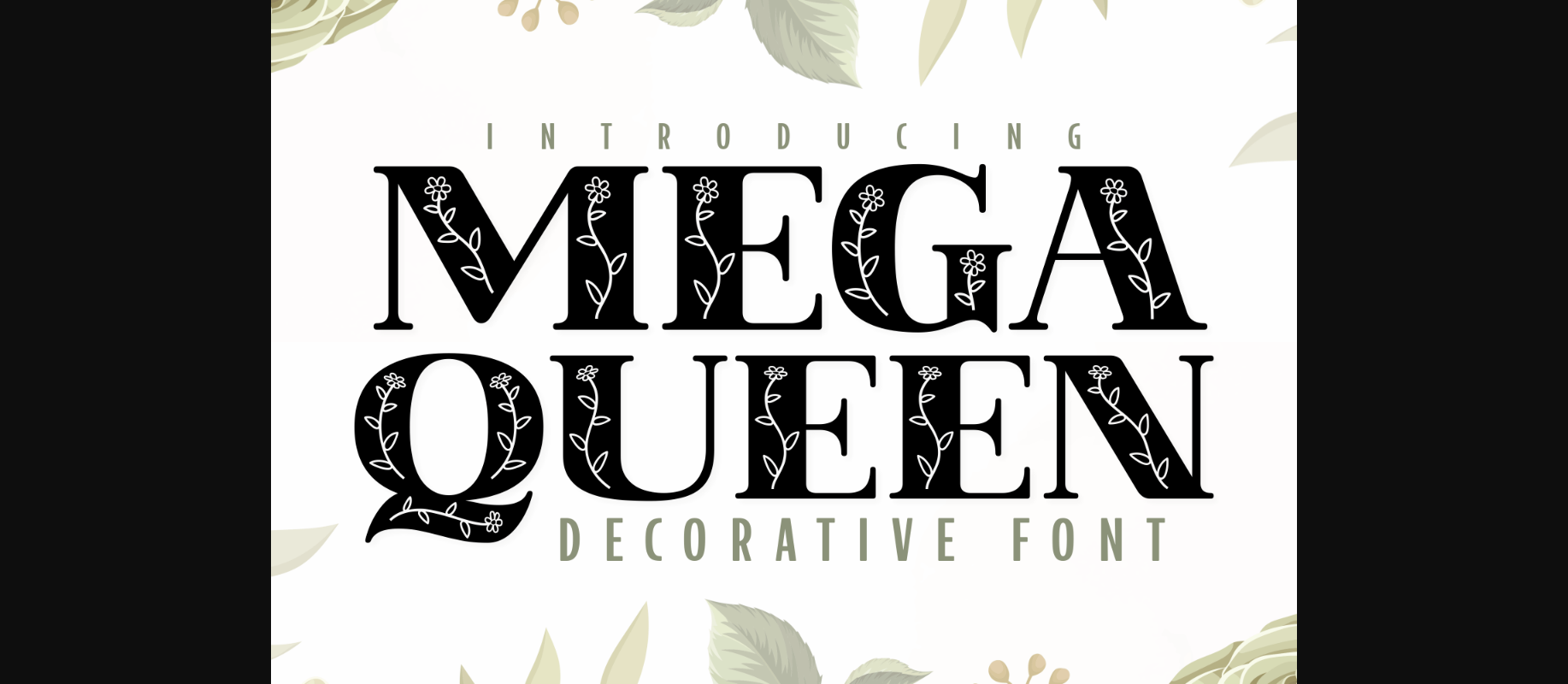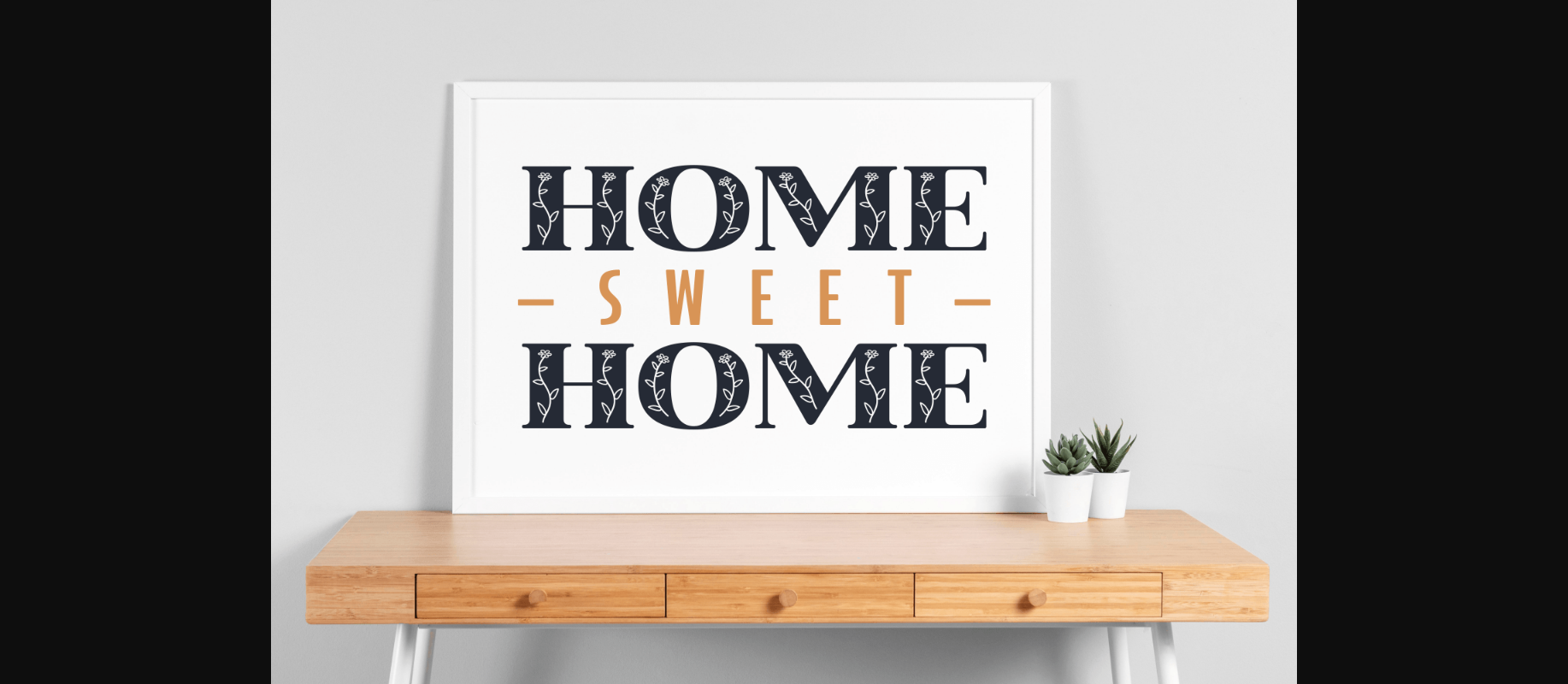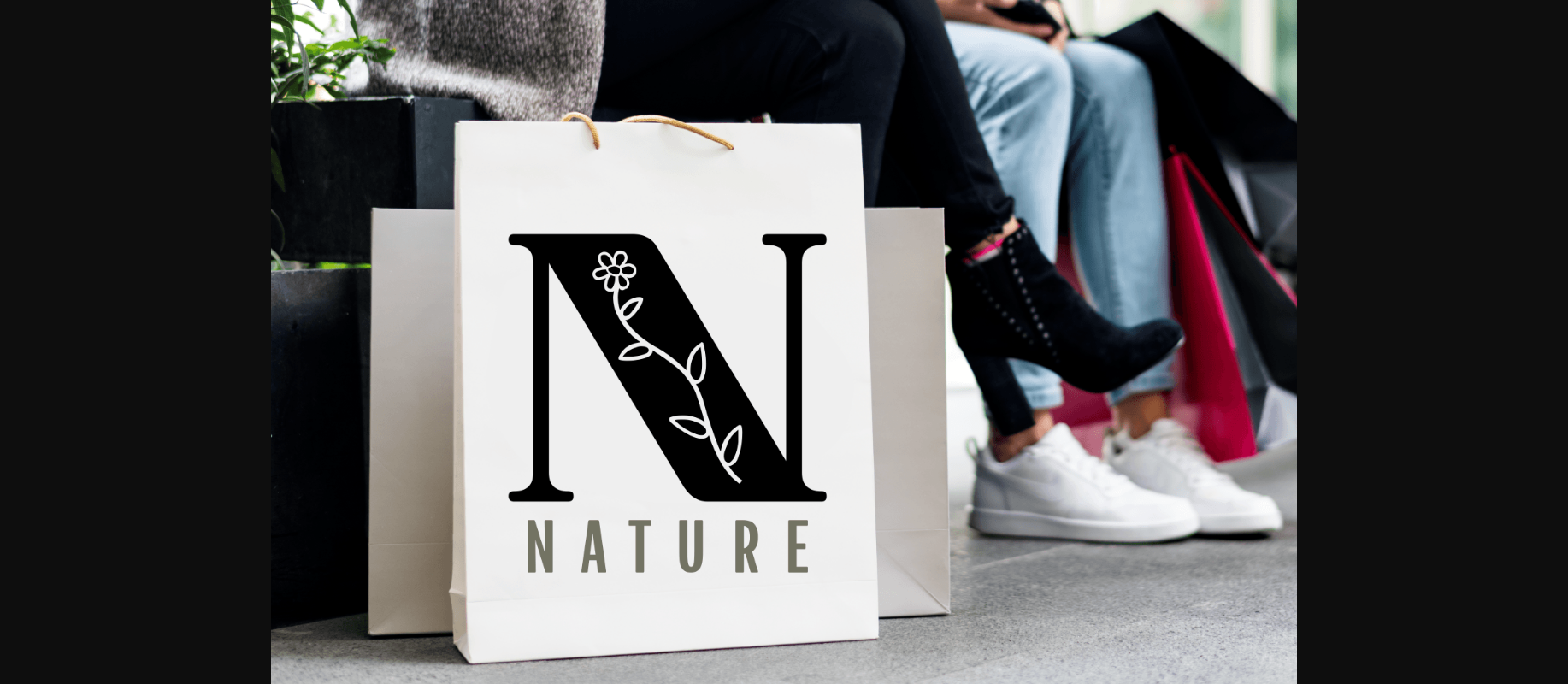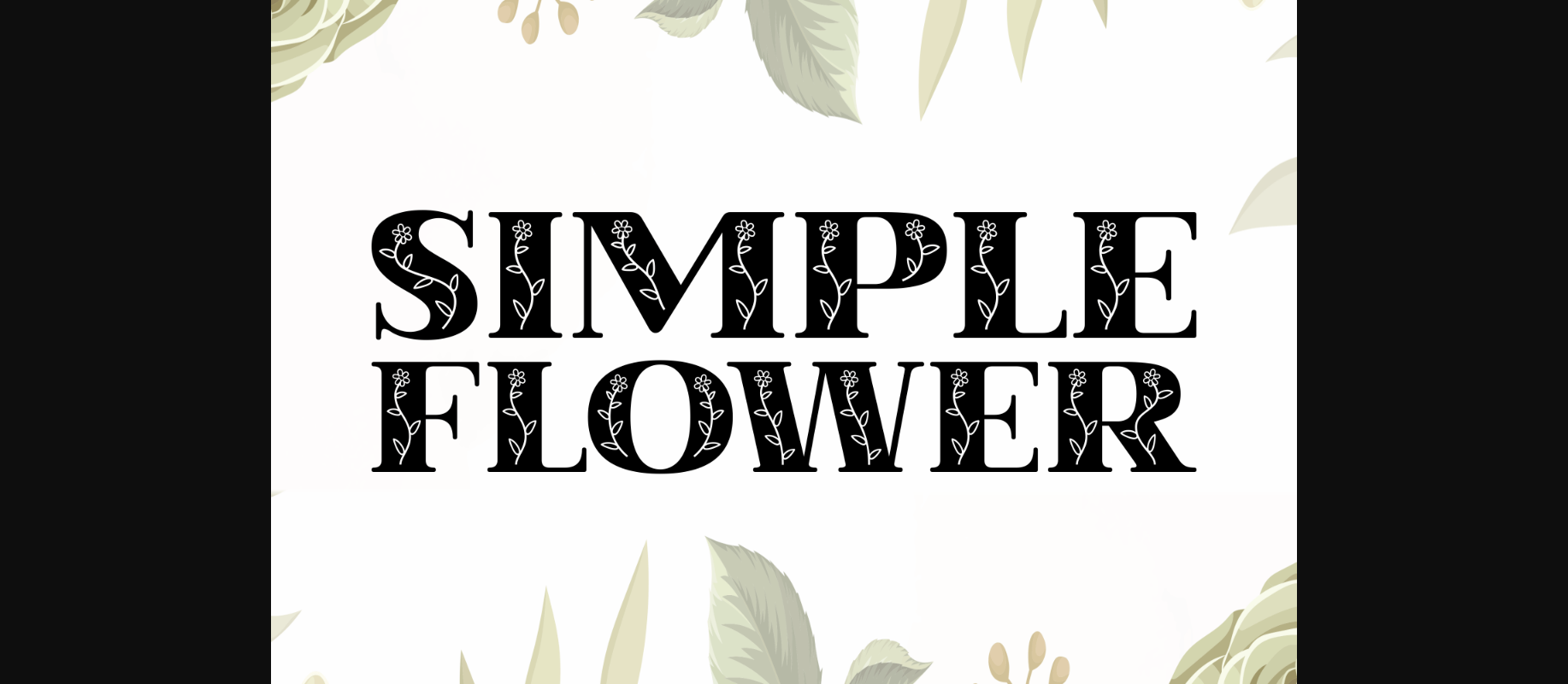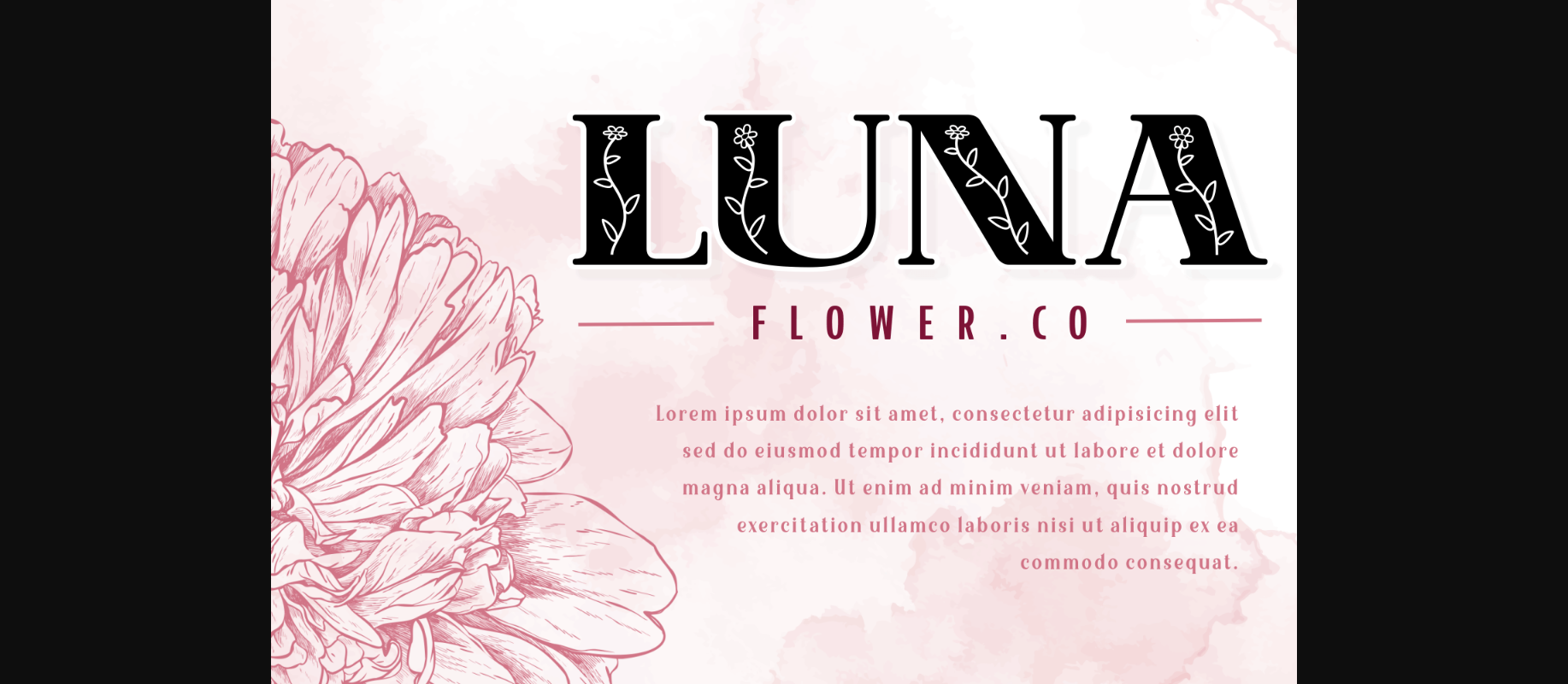
HomeDecorative FontsMega Queen Font Decorative Fonts Mega Queen Font FacebookXPinterestWhatsApp 1 of 7 ... Mega Queen Font Poster 2... Mega Queen Font Poster 3... Mega Queen Font Poster 4... Mega Queen Font Poster 5... Mega Queen Font Poster 6... Mega Queen Font Poster 7... About Mega Queen Font Mega Queen is a naturally elegant and clear decorative font. Use this font for your designs and take your upcoming projects to the next level! DOWNLOAD NOW People also explored Montain Fight Font Archeology Heather Forest Bella Canvas 3001 Mockup Bear Font Reinata Font Dirigible Font Andolas Reglest Font Shelter Font 358 0 TagsMega Queen Font Previous articleGeliana Monogram FontNext articleParadise Font LEAVE A REPLY Cancel reply Comment: Please enter your comment! Name:* Please enter your name here Email:* You have entered an incorrect email address! Please enter your email address here Website: Save my name, email, and website in this browser for the next time I comment. Personal Use Free Sushi Day Personal Use Free Read more about this font Nugo Sans Personal Use Free Read more about this font Miracles Personal Use Free Read more about this font Sybil Green Personal Use Free Read more about this font BLOG Best Fonts for T-Shirt Design – Top 2025 Picks In 2025, t-shirt design has become more than just fashion—it's a form of self-expression. Whether you're... Transform Your Website: Elevate Your Typography with 7 Best Web Font Generators 5 Fonts That Will Dominate Design Trends in 2026 Top 10 Handwritten Fonts That Elevate Your Designs